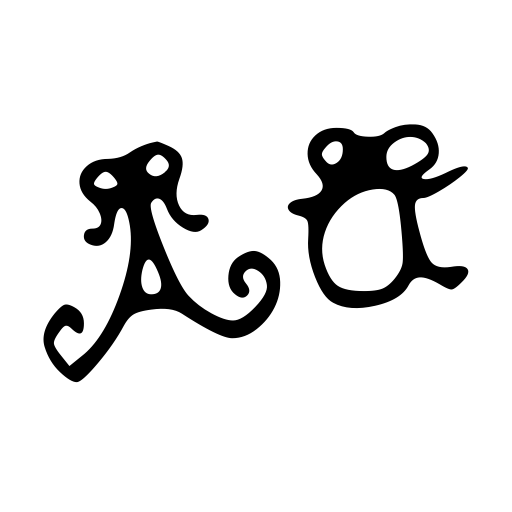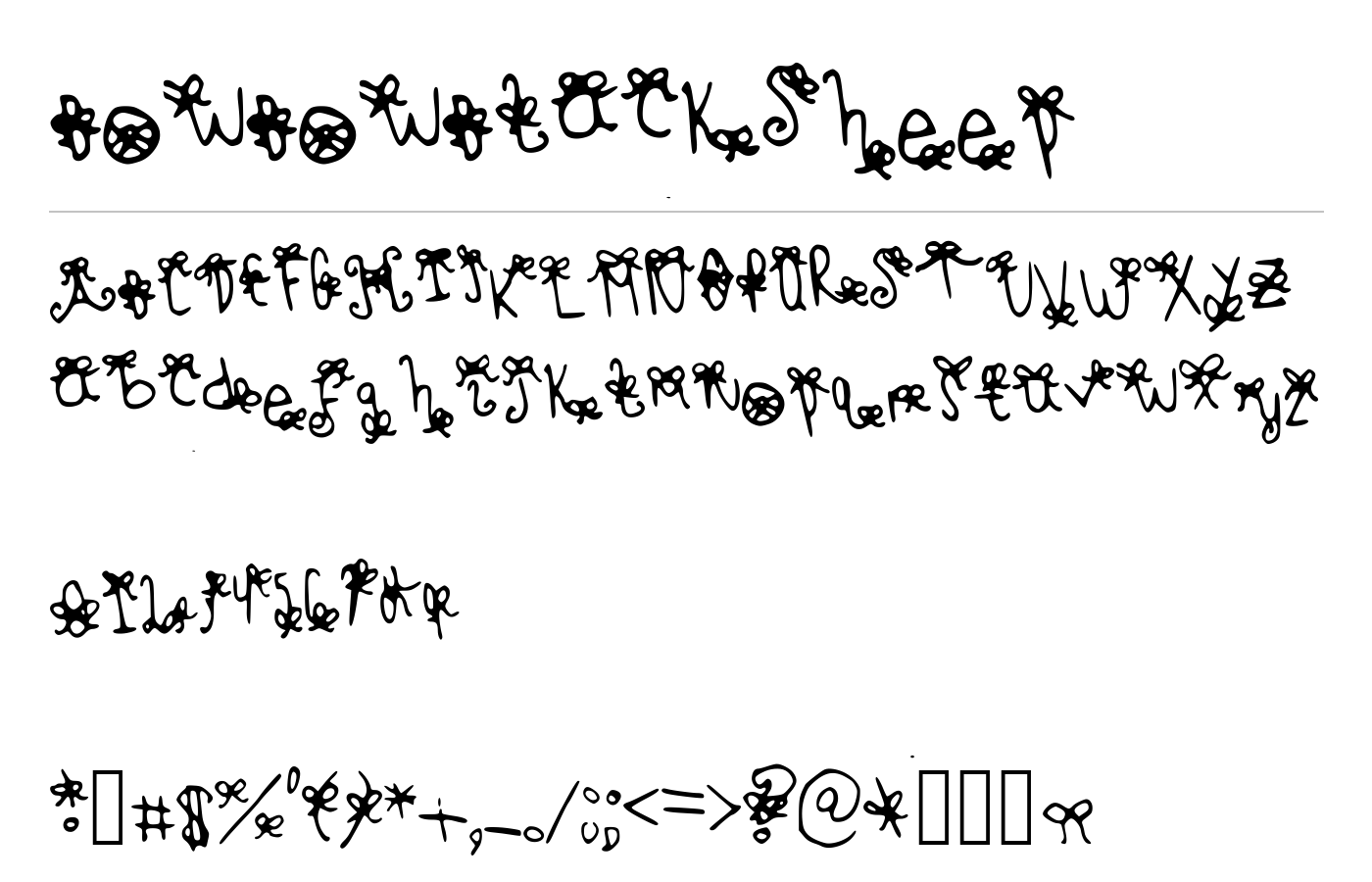
BowBowBlackSheep is a whimsical, decorative handwritten font characterized by playful, irregular shapes with quirky loops and distinctive embellishments that resemble ribbons or bows. Its light weight and casual, artistic style lend a fun and quirky personality, making it perfect for creative projects, children’s books, party invitations, or branding that seeks a cheerful and unconventional look. This font works best in headlines or display use where its unique charm can shine without overwhelming the reader.
BowBowBlackSheep Font
About BowBowBlackSheep Font